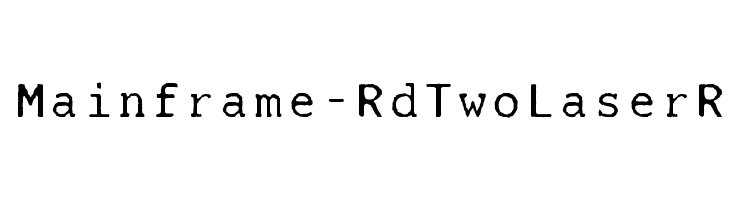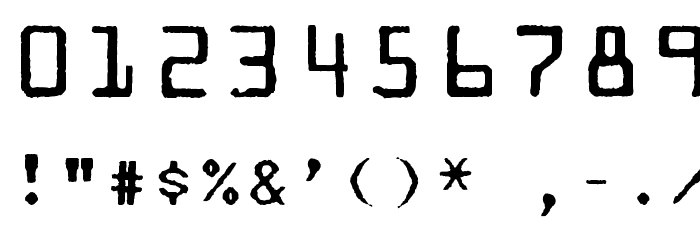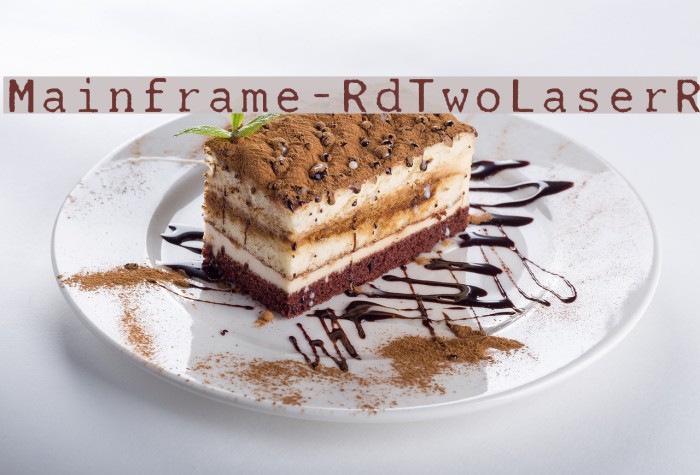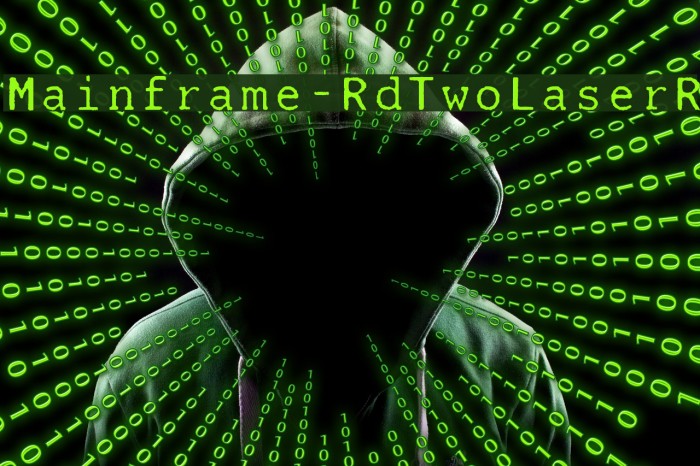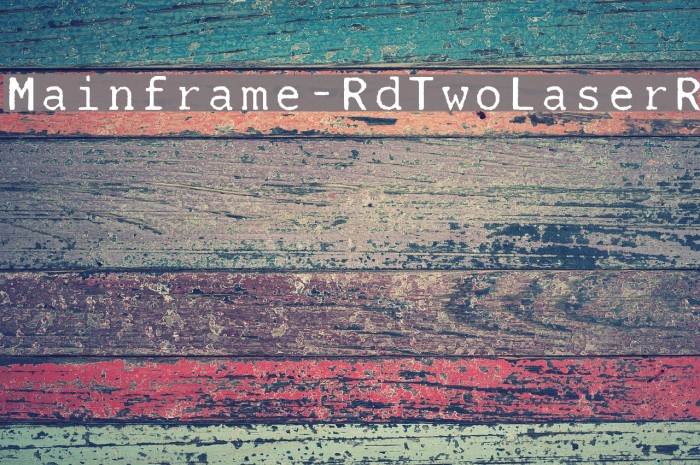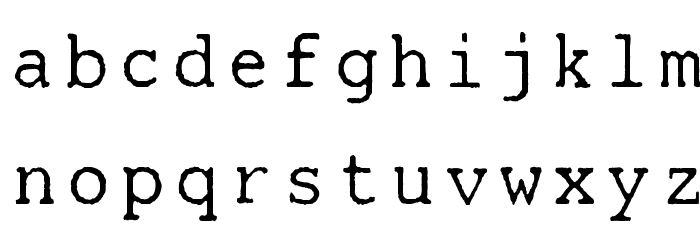
Mainframe-RdTwoLaserR Font
Mainframe-RdTwoLaserR Description
This font features a distinct, retro-inspired design with a typewriter-like aesthetic. The characters are monospaced, providing a uniform appearance that is reminiscent of old computer terminals or typewriters. The edges of the letters are slightly rough, giving them a worn, vintage look. This style is perfect for projects that aim to evoke a sense of nostalgia or convey a mechanical, industrial feel. The font includes a full set of uppercase and lowercase letters, numbers, and a variety of special characters, making it versatile for different design needs.
A retro, typewriter-style font with a vintage, worn look from Uncategorized fonts.
- Proposed Projects: Ideal for vintage-themed designs, retro posters, tech-related projects, or any creative work that requires a typewriter aesthetic.
- Overall Style: Vintage